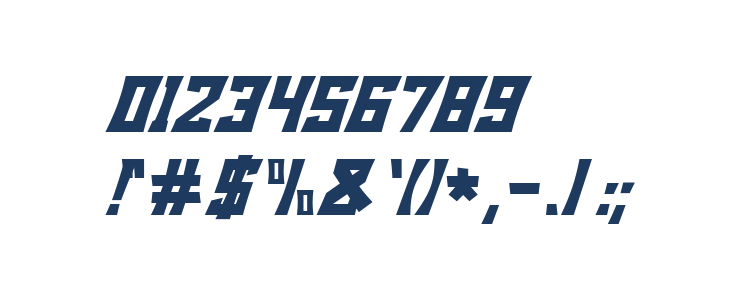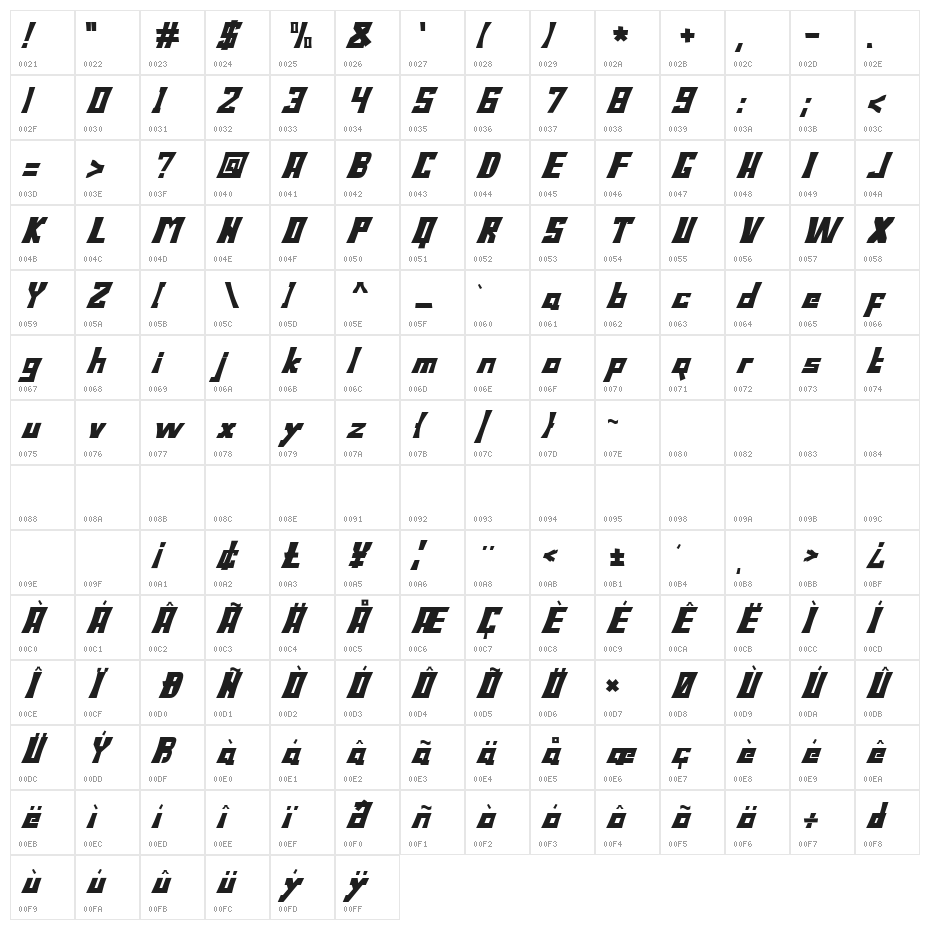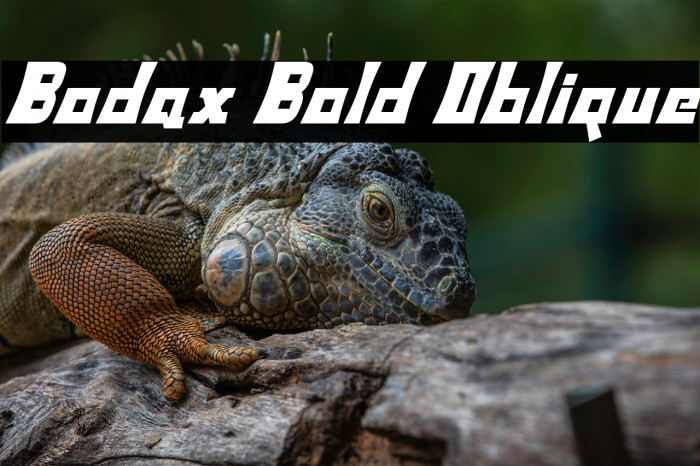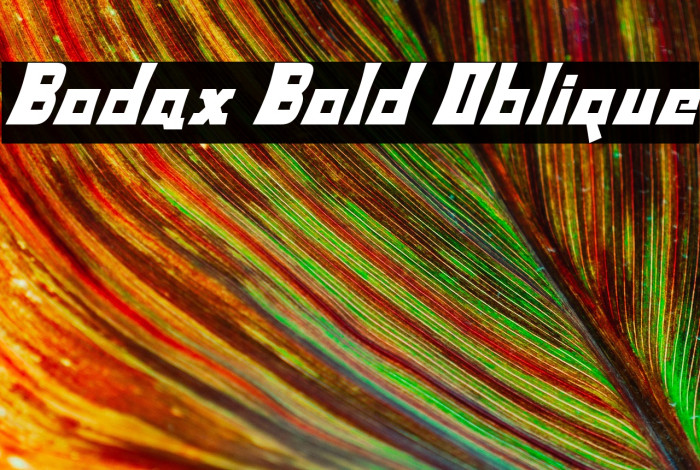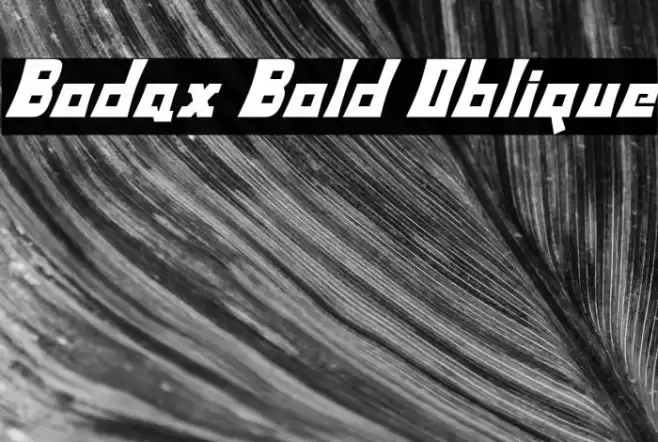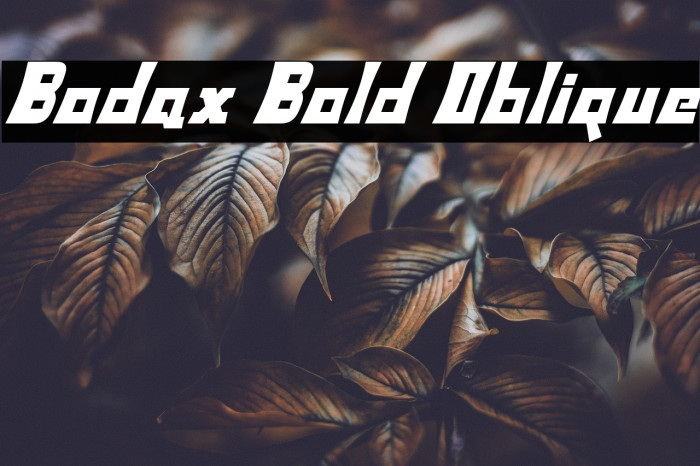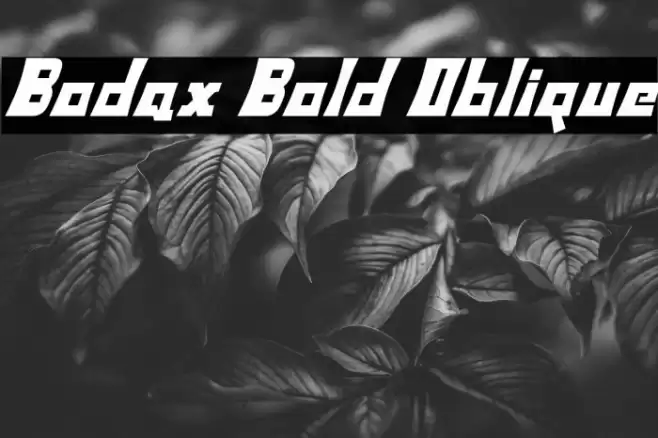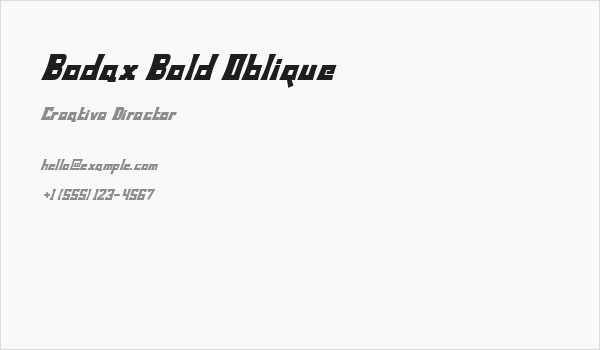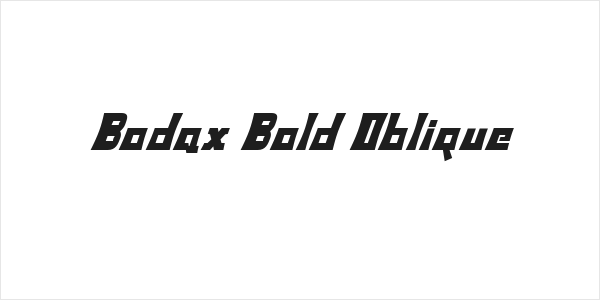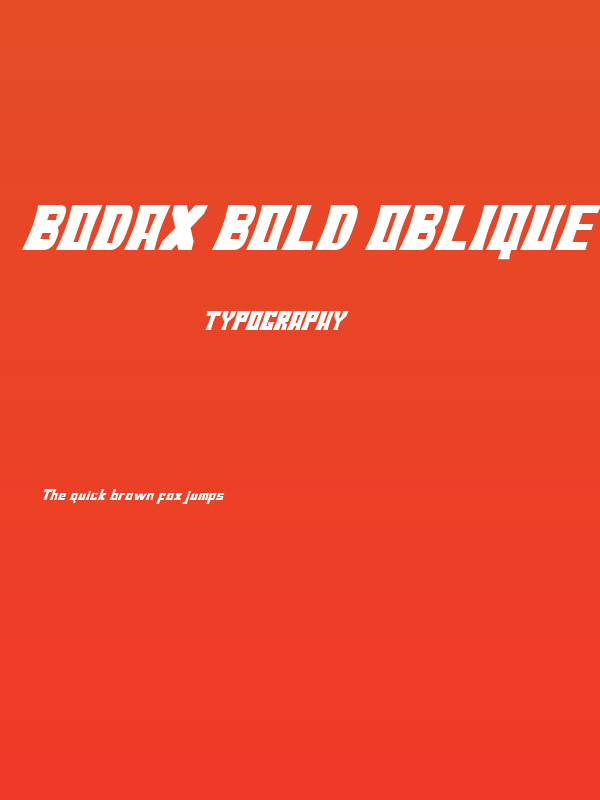
Bodax Bold Oblique Font
Bodax Bold Oblique Description
This font features a bold and dynamic style with a strong oblique slant, giving it a sense of motion and energy. The characters are sharply angled, with thick strokes that create a powerful visual impact. The uppercase and lowercase letters maintain a consistent slant, enhancing the font's cohesive appearance. The numerals and special characters follow the same bold and angular design, ensuring uniformity across all glyphs. This font's unique style makes it suitable for projects that require a modern and edgy look.
| Proposed Projects | Ideal for sports branding, action movie posters, dynamic logos, and modern advertising campaigns. |